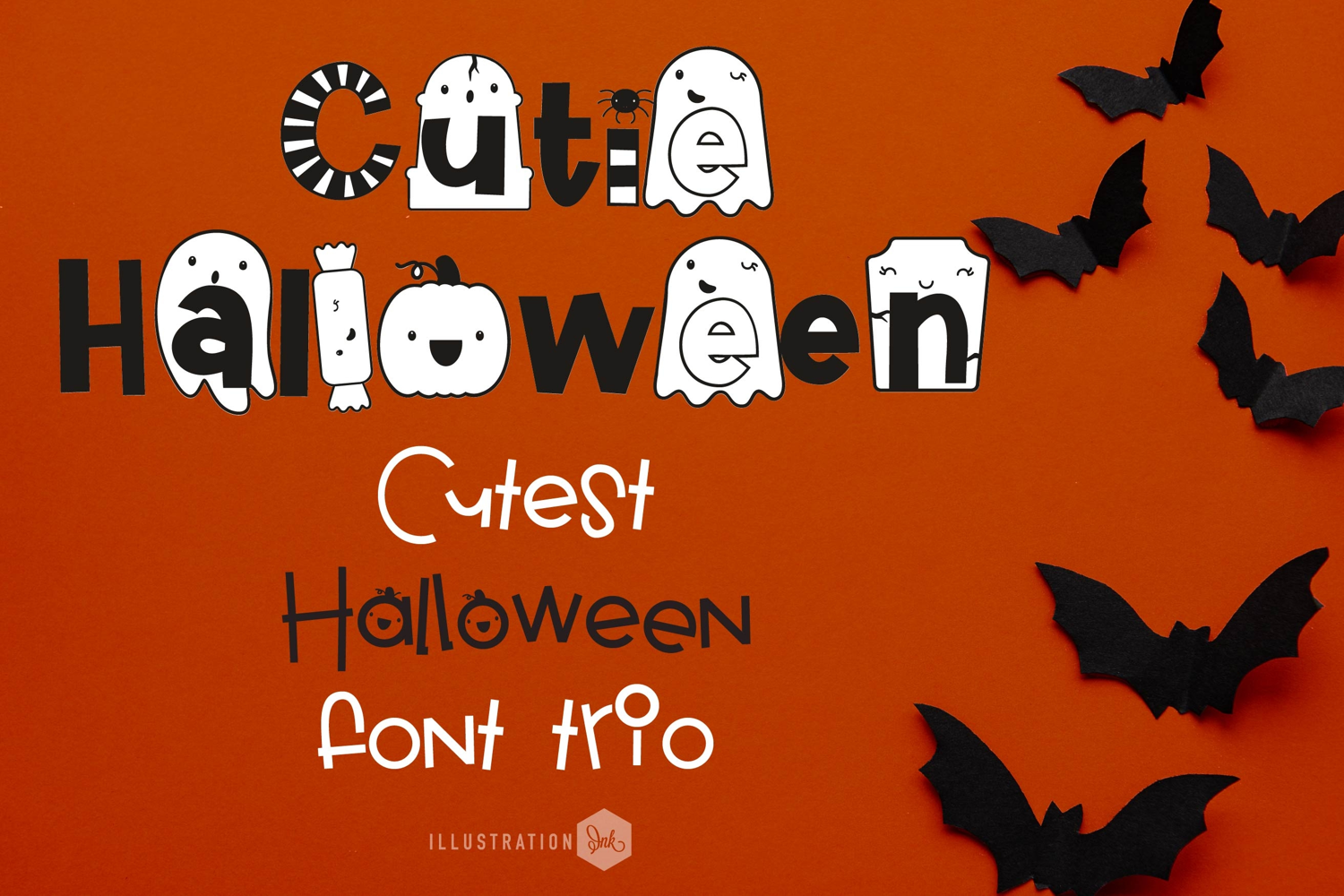
Cutie Halloween Font Trio
This hand-crafted font trio combines a cute Halloween-imagery font with a coordinated print and a second print filled with jack-o-lantern faces. With all family members combined of the 3 fonts, you get 7 fonts all together!